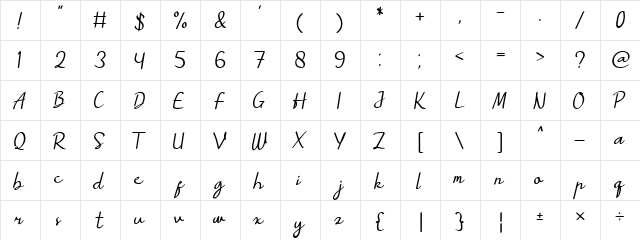
Myrtale Handwritten
| Style | Handwritten |
| Designer | Dadan Sukma Nurdiansyah | Dasukreation |
Myrtale brings a calligraphic fluidity to the page — its connecting strokes and expressive curves give it an unmistakably human quality.
Font Pairing: Combine Myrtale with a simple geometric sans for maximum contrast — the tension between flowing curves and clean structure is a classic typographic pairing.